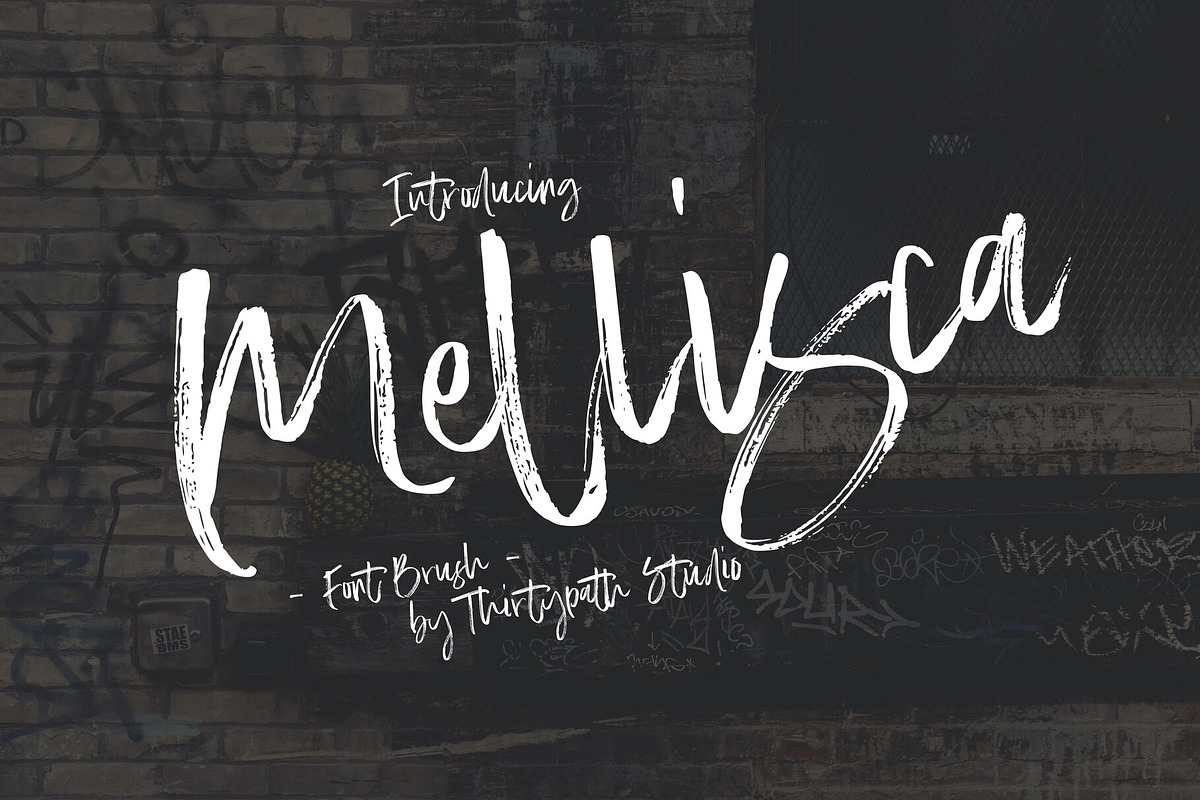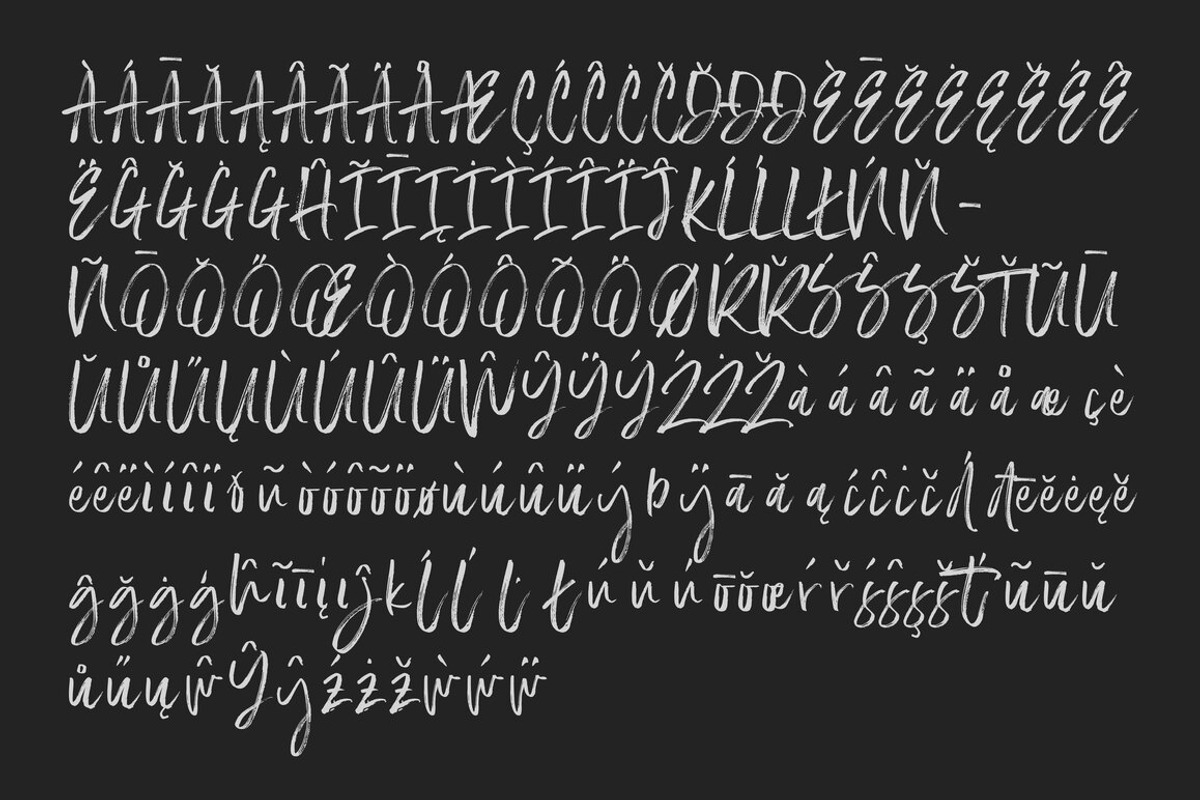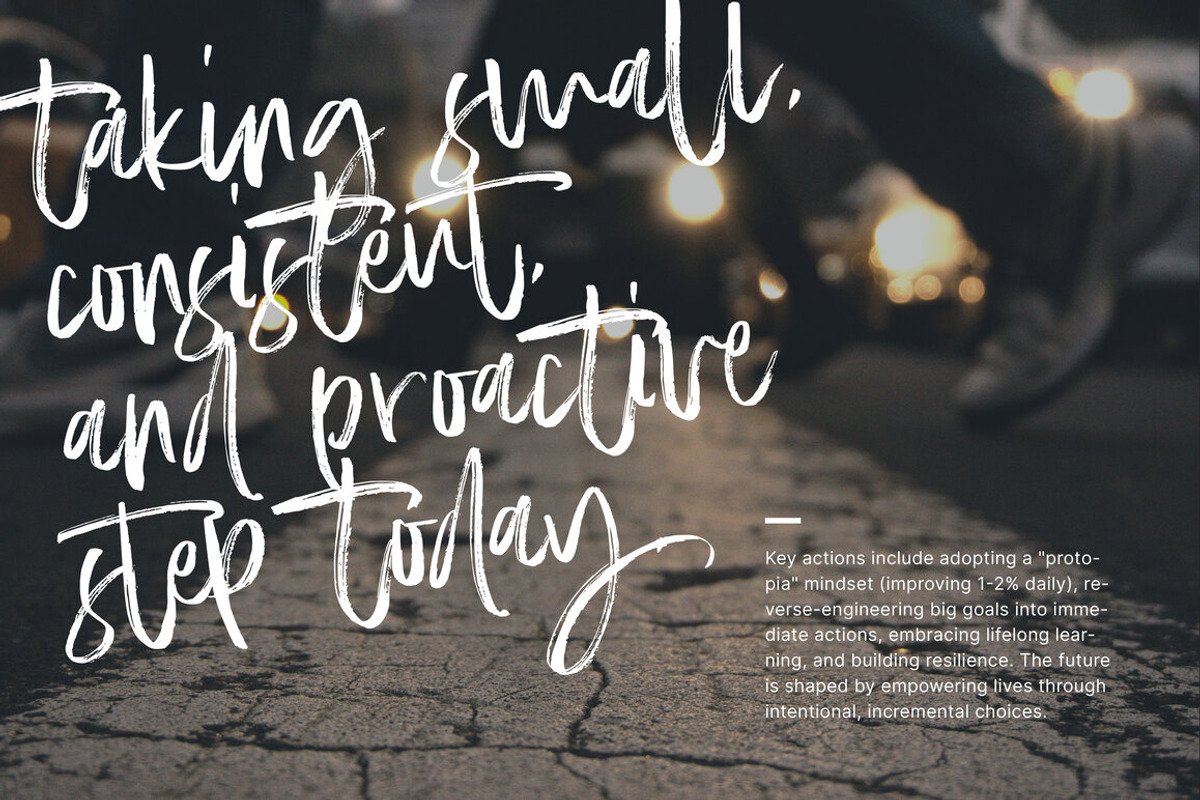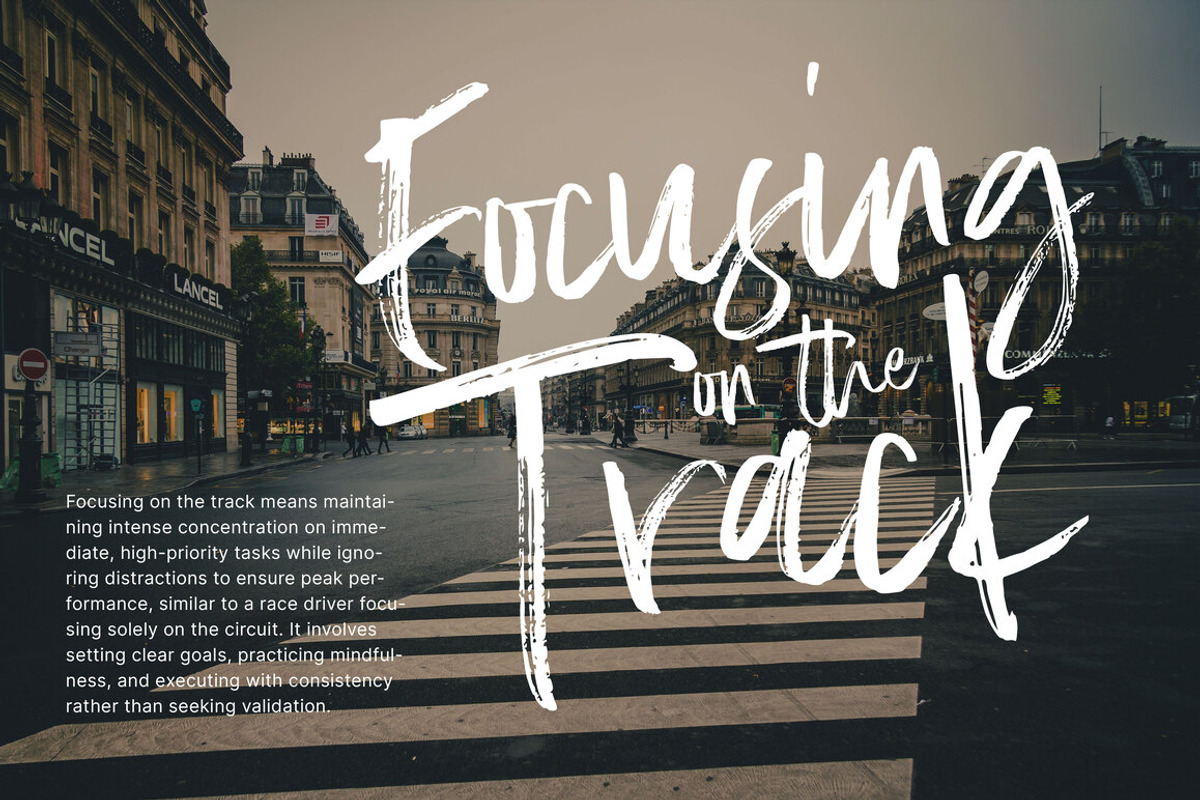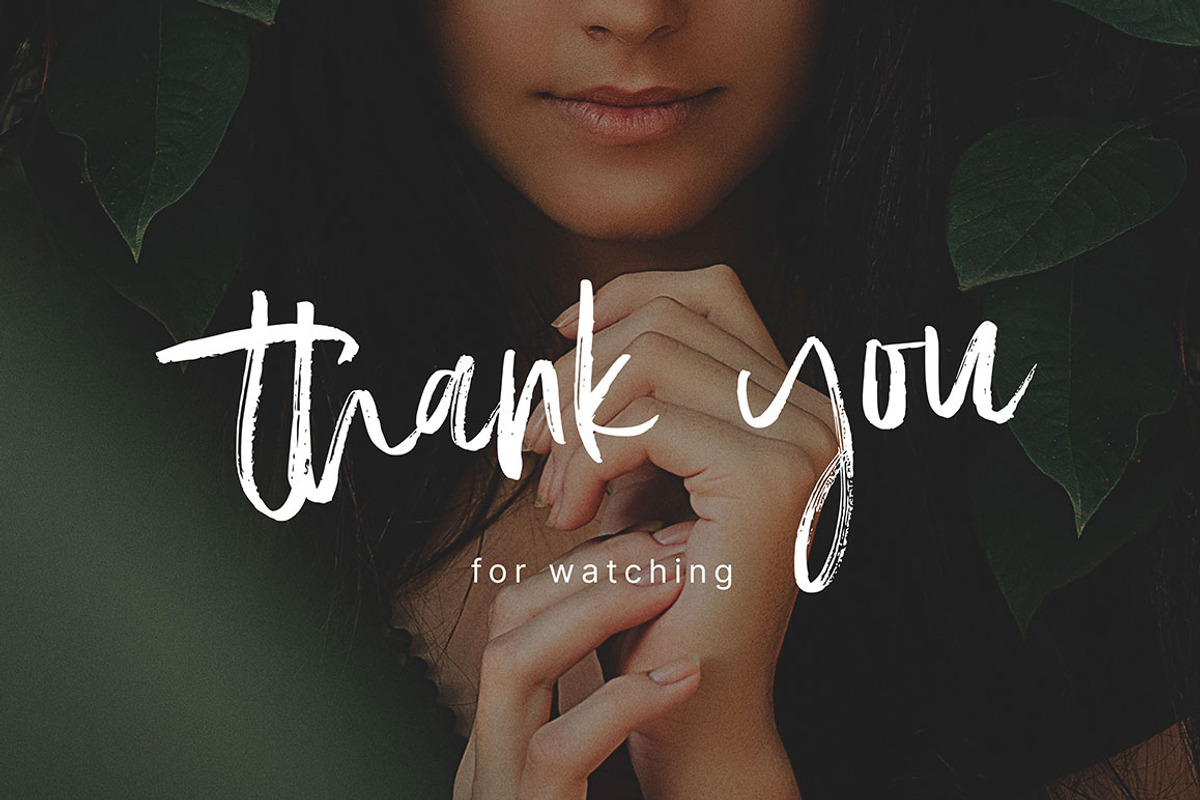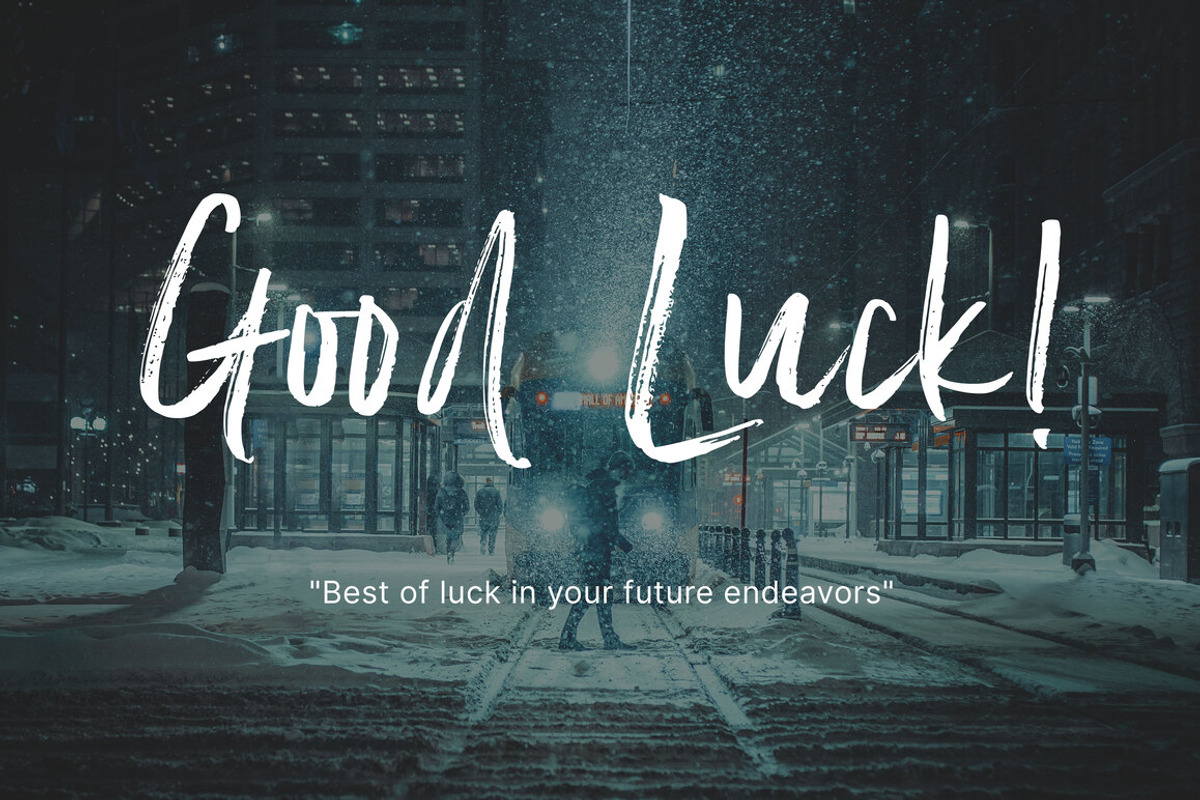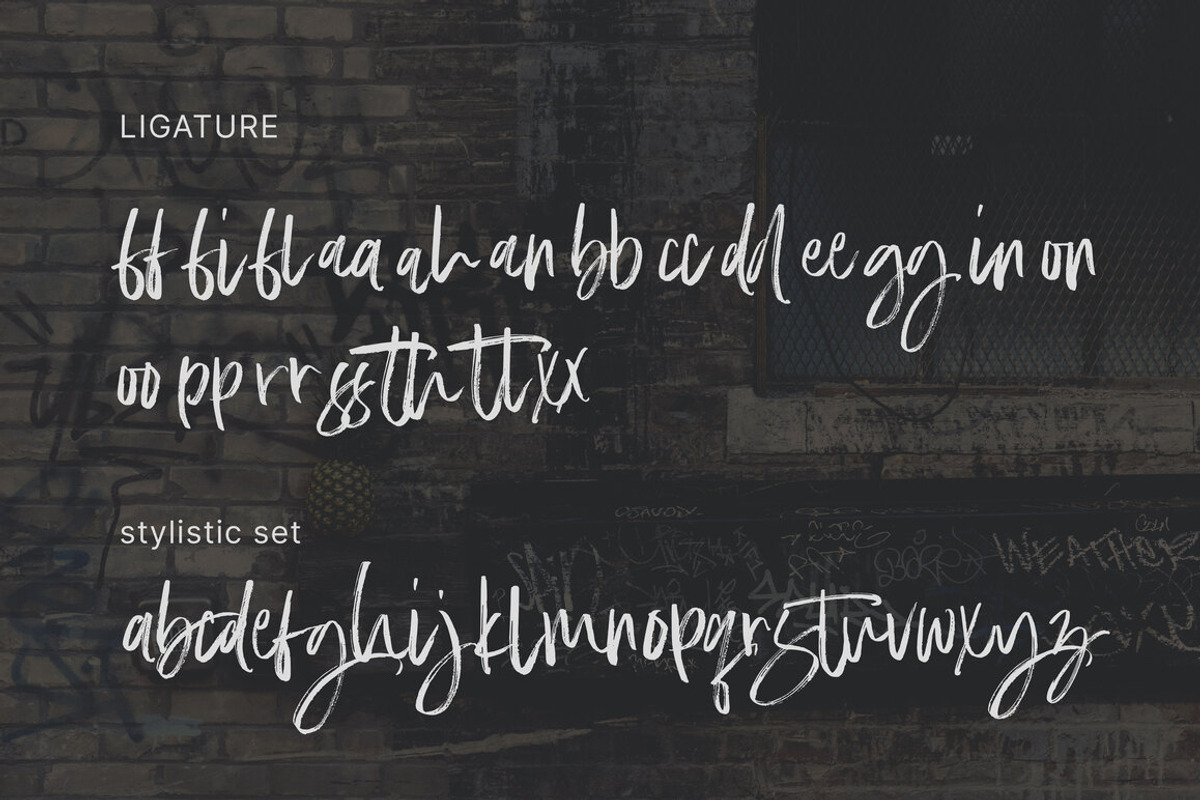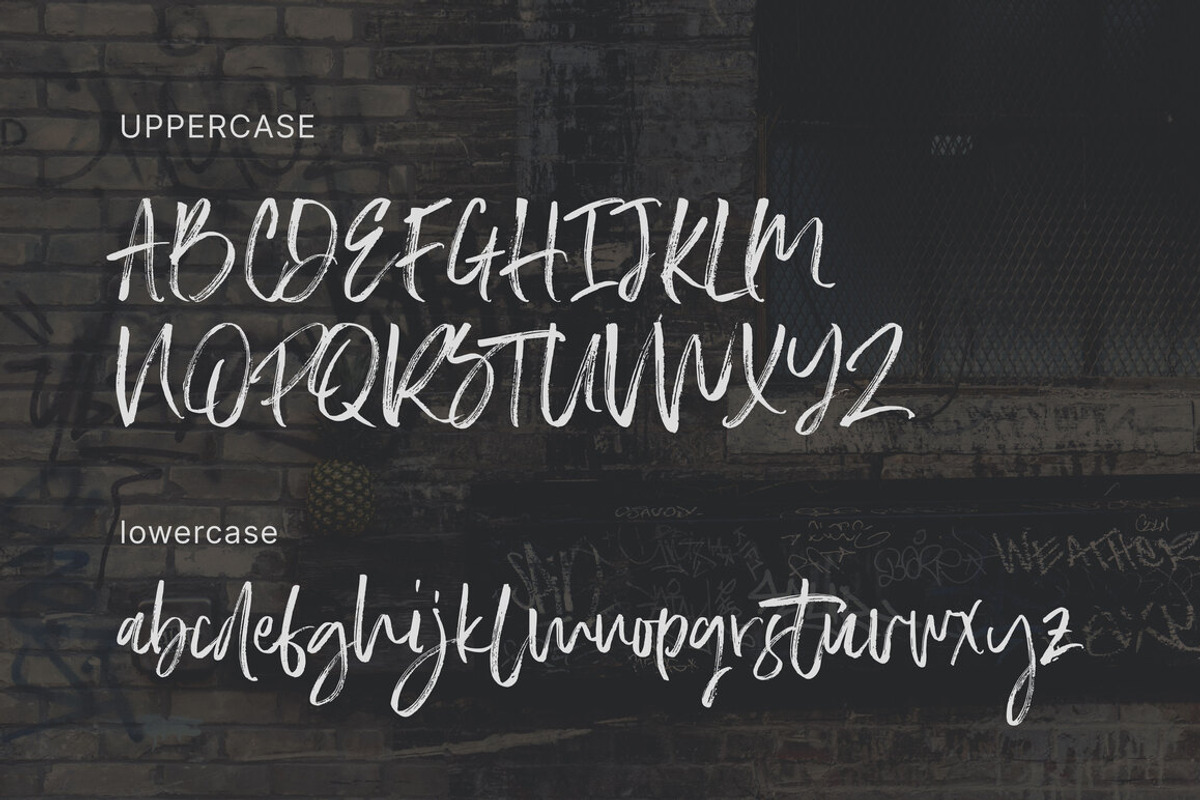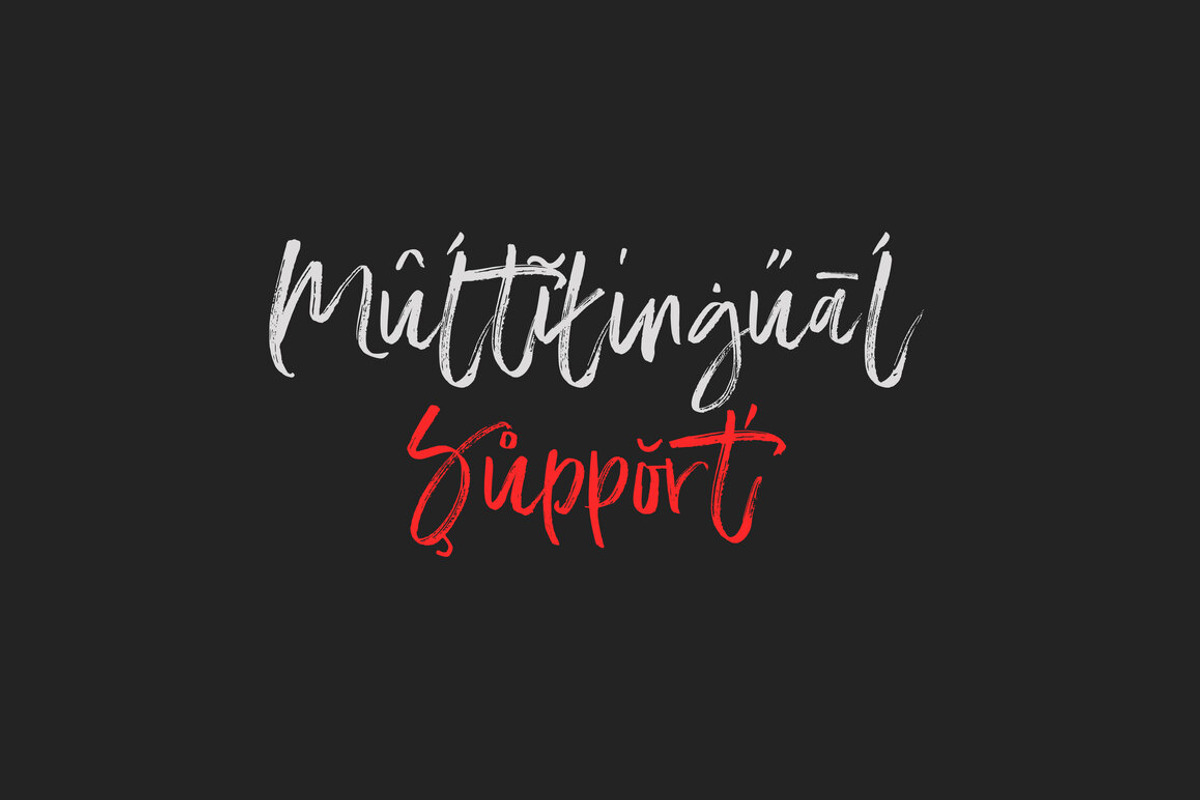
Mellisca Handwritten Brush Font
Mellisca is a bold, expressive brush script font with a raw, authentic handwritten feel. Every letter carries the texture of a real brush stroke, giving your design a confident and energetic character that feels personal rather than digital. Whether you're working on branding, social media content, apparel, or editorial layouts, Mellisca brings movement and warmth to any composition.
This font comes with a complete set of uppercase and lowercase letters, along with full numbers, punctuation, and standard symbols so it's ready for real-world projects right out of the box. Mellisca also includes multilingual support, covering extended Latin and accented characters, making it accessible for international designers and global brands.
To give you more creative flexibility, Mellisca includes contextual ligatures for smoother, more natural letter connections, as well as stylistic alternates that let you vary the look of individual characters throughout your design. These small details help avoid repetitive patterns and keep handwritten-style layouts looking genuine.
Mellisca works beautifully for logos, posters, packaging, quote graphics, apparel prints, and any project that calls for a handcrafted, signature-style aesthetic. Its versatility makes it a reliable choice across both casual and premium branding projects.